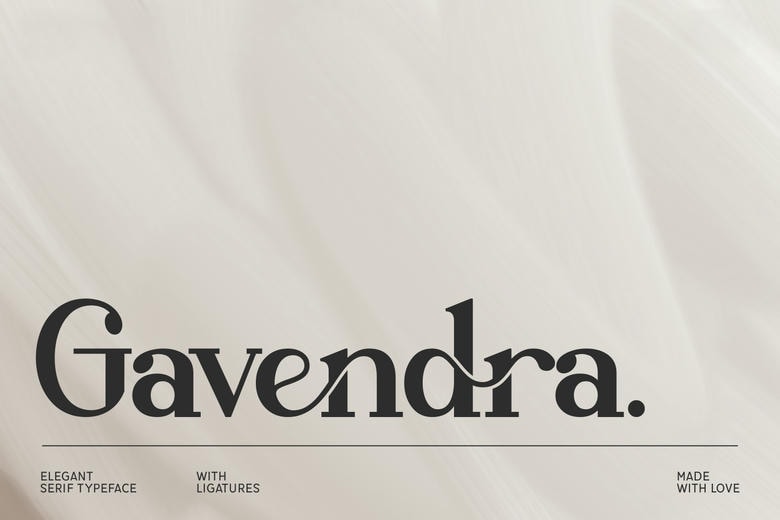
Gavendra Font
Gavendra is an elegant serif font that combines the classic appeal and contemporary imagination. This font has a fancy personality contributed by elegant ligatures, flowing letterforms, and is ideal in branding, editorial layout, packaging, and luxury logos. It has a good peaceful rhythm of its smooth curves and unique serifs that make it sound not only elegant but also modern.
Gavendra Serif Font